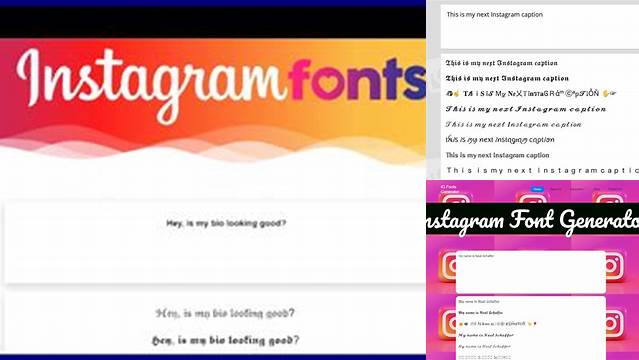
Igfonts.io: Create Cool Fonts For Instagram!
Are you looking to enhance your Instagram profile with unique and eye-catching fonts? Well, you've come to the right place! In this article, we'll dive deep into igfonts.io, a fantastic tool that lets you generate cool and stylish fonts for your Instagram bio, captions, and posts. Let's explore how you can leverage this platform to stand out from the crowd and add a personal touch to your social media presence. Using igfonts.io is as easy as pie. Simply type your text into the input box, and the website will generate a plethora of font options for you to choose from. You can then copy and paste your chosen font directly into your Instagram bio, captions, or comments. It’s a seamless and quick way to add flair to your content. One of the best things about igfonts.io is the sheer variety of fonts available. Whether you're after a playful, elegant, bold, or quirky style, you'll find something that perfectly matches your vibe. This allows you to tailor your Instagram presence to reflect your personality and brand identity. When you use unique fonts, you're not just posting content; you're making a statement. A distinctive font can grab the attention of your followers and potential new ones, making your profile more memorable. In a sea of standard fonts, standing out is crucial, and igfonts.io helps you do just that. By using this tool, you're adding a creative layer to your content that can resonate with your audience and leave a lasting impression.
What is igfonts.io?
igfonts.io is a web-based tool designed to generate stylish and unique fonts that you can use on your Instagram profile. It provides a simple and user-friendly interface where you can type in your desired text and instantly see it transformed into a variety of cool fonts. These fonts aren't actually fonts in the traditional sense; they're special Unicode characters that resemble different font styles. Instagram doesn't allow users to upload custom fonts, but igfonts.io cleverly circumvents this limitation by using these special characters. This makes it super easy for anyone to add some pizzazz to their Instagram bio, captions, and posts without needing any technical skills. With igfonts.io, you can take your Instagram game to the next level by adding a touch of individuality and creativity. The platform is designed to be intuitive, so even if you're not a tech whiz, you can easily navigate and use it to create eye-catching text. Simply type, select, and copy – it’s that straightforward! The beauty of igfonts.io lies in its accessibility and simplicity. It’s a tool that empowers anyone to enhance their Instagram presence with minimal effort. By offering a wide range of font styles, igfonts.io ensures that you can find the perfect match for your personal brand or aesthetic. Whether you’re aiming for a sophisticated look or a playful vibe, the platform provides the tools to help you achieve your desired effect. And because it uses Unicode characters, the fonts are compatible across different devices and platforms, ensuring that your stylish text will be visible to everyone, regardless of their device or operating system. So, if you're looking to make your Instagram profile pop, igfonts.io is a fantastic resource to have in your toolkit.
How to Use igfonts.io for Instagram
Using igfonts.io to enhance your Instagram profile is incredibly straightforward. First, head over to the igfonts.io website. You'll immediately see a text box where you can type in the text you want to transform. This could be anything from your Instagram bio to a caption for your latest post. Once you've typed in your text, igfonts.io will automatically generate a variety of stylish fonts below the input box. Scroll through the options and find the font that best suits your style and the message you want to convey. When you find a font you love, simply click on it to copy it to your clipboard. Then, navigate to your Instagram profile or the post you want to edit, and paste the font into the desired text field. Whether it's your bio, a caption, or even a comment, the stylish font will instantly appear, adding a unique flair to your content. One of the great things about igfonts.io is that it’s compatible with both desktop and mobile devices. This means you can create stylish fonts on your computer and then easily transfer them to your phone for posting on Instagram. The process is seamless and hassle-free, allowing you to focus on creating engaging content without getting bogged down in technical details. Additionally, igfonts.io is constantly updating its font selection, so you'll always have fresh and exciting options to choose from. This ensures that your Instagram profile stays current and visually appealing. Remember, consistency is key when it comes to branding, so try to choose a font that aligns with your overall aesthetic and stick with it to create a cohesive look across your profile. By following these simple steps, you can easily use igfonts.io to elevate your Instagram presence and make a lasting impression on your followers.
Benefits of Using Unique Fonts on Instagram
Using unique fonts on Instagram offers a plethora of benefits that can significantly enhance your online presence. First and foremost, unique fonts help you stand out from the crowd. With millions of users vying for attention, having a distinctive font in your bio, captions, and posts can make your profile more memorable and eye-catching. In a sea of standard fonts, a creative and stylish font can grab the attention of potential followers and leave a lasting impression. This is particularly important for businesses and influencers looking to build a strong brand identity. A well-chosen font can communicate your brand's personality and values, helping you connect with your target audience on a deeper level. Secondly, using unique fonts can add a touch of personality and creativity to your Instagram profile. Instead of relying on the default fonts, you can express your individuality and showcase your unique style. This can make your profile more engaging and relatable, encouraging followers to interact with your content and become loyal fans. Whether you're going for a playful, elegant, or bold look, unique fonts can help you achieve your desired aesthetic and create a cohesive visual identity. Moreover, unique fonts can improve the readability and visual appeal of your content. By choosing fonts that are easy to read and visually pleasing, you can make your captions and posts more accessible and enjoyable for your audience. This can lead to increased engagement, as followers are more likely to read and interact with content that is visually appealing and easy to understand. Additionally, using different fonts for headings, subheadings, and body text can help break up large blocks of text and make your content more scannable. Finally, unique fonts can enhance your brand recognition. By consistently using a specific font across your Instagram profile and other social media platforms, you can create a recognizable visual identity that followers will associate with your brand. This can help you build brand awareness and establish yourself as a thought leader in your industry. In conclusion, the benefits of using unique fonts on Instagram are numerous and far-reaching. From standing out from the crowd to enhancing brand recognition, unique fonts can help you elevate your online presence and achieve your social media goals.
Alternatives to igfonts.io
While igfonts.io is a fantastic tool for generating stylish Instagram fonts, there are several alternatives worth exploring. These alternatives offer similar functionalities and can provide you with even more options to customize your Instagram profile. One popular alternative is LingoJam. LingoJam offers a wide range of font styles and allows you to preview your text in different fonts before copying and pasting it into your Instagram bio or captions. Like igfonts.io, LingoJam uses Unicode characters to create these stylish fonts, ensuring compatibility across different devices and platforms. Another alternative is FontGet. FontGet boasts an extensive library of fonts, ranging from classic styles to more modern and unique designs. You can easily search for fonts based on categories, such as sans-serif, serif, and script, making it easy to find the perfect font for your Instagram profile. FontCopy is another great option. FontCopy offers a simple and user-friendly interface, similar to igfonts.io. You can type in your text and instantly see it transformed into various stylish fonts. FontCopy also provides a handy preview feature, allowing you to see how your text will look on Instagram before copying and pasting it. For those looking for even more customization options, Cool Fonts is a worthwhile alternative. Cool Fonts not only offers a wide range of font styles but also allows you to customize the size, color, and spacing of your text. This gives you greater control over the appearance of your Instagram profile and allows you to create truly unique and eye-catching content. Finally, if you're looking for a mobile app to generate stylish Instagram fonts, Fontly is a great choice. Fontly is available for both iOS and Android devices and offers a wide range of fonts and customization options. You can easily create stylish fonts on your phone and then directly paste them into your Instagram bio or captions. By exploring these alternatives to igfonts.io, you can discover even more ways to enhance your Instagram profile and stand out from the crowd. Each tool offers unique features and functionalities, so experiment with different options to find the one that best suits your needs and preferences.
In conclusion, igfonts.io is an excellent resource for anyone looking to add a touch of style and personality to their Instagram profile. With its user-friendly interface and a wide variety of font options, igfonts.io makes it easy to create eye-catching bios, captions, and posts that stand out from the crowd. By using unique fonts, you can enhance your brand recognition, improve the readability of your content, and connect with your audience on a deeper level. Whether you're a business owner, influencer, or simply someone who wants to make their Instagram profile more visually appealing, igfonts.io is a valuable tool to have in your arsenal. While igfonts.io is a great option, it's also worth exploring the alternatives mentioned earlier. Each tool offers unique features and functionalities, so experiment with different options to find the one that best suits your needs and preferences. Remember, consistency is key when it comes to branding, so choose a font that aligns with your overall aesthetic and stick with it to create a cohesive look across your profile. By leveraging the power of unique fonts, you can elevate your Instagram presence and achieve your social media goals. So go ahead, give igfonts.io a try and see how it can transform your Instagram profile into a visual masterpiece!